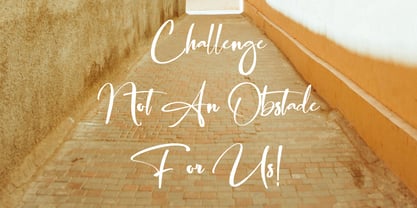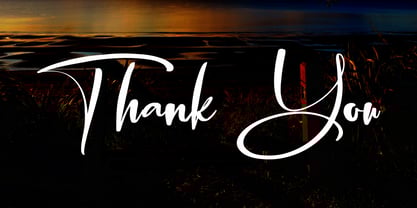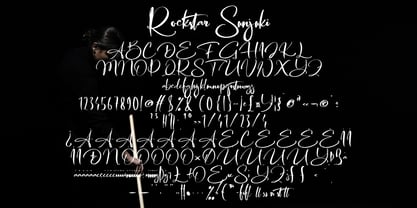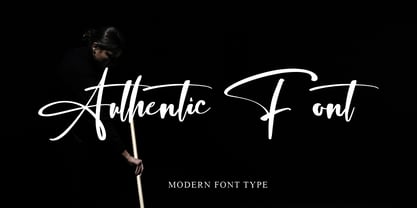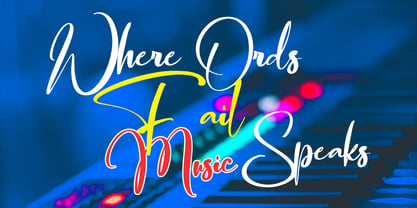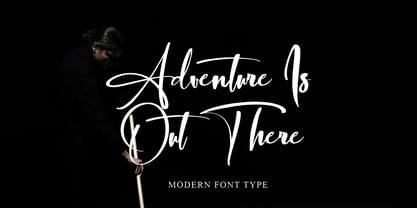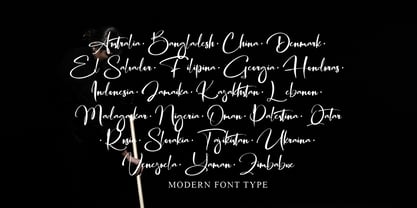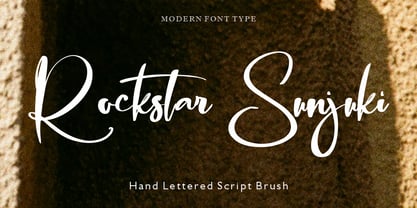
Rockstar Sunjuki
by Gian Studio
The Rockstar Sunjuki Font Family was designed by Yusliana M Isa and published by Gian Studio. Rockstar Sunjuki contains 1 styles. More about this family
Rockstar Sunjuki, an elegant brush font with a wide selection of styles to suit your needs!
Rockstar Sunjuki is perfect for titles, logos, product packaging, branding projects, magazines, social media, weddings, or simply to express words on a background.
Rockstar Sunjuki also comes with multilingual support.